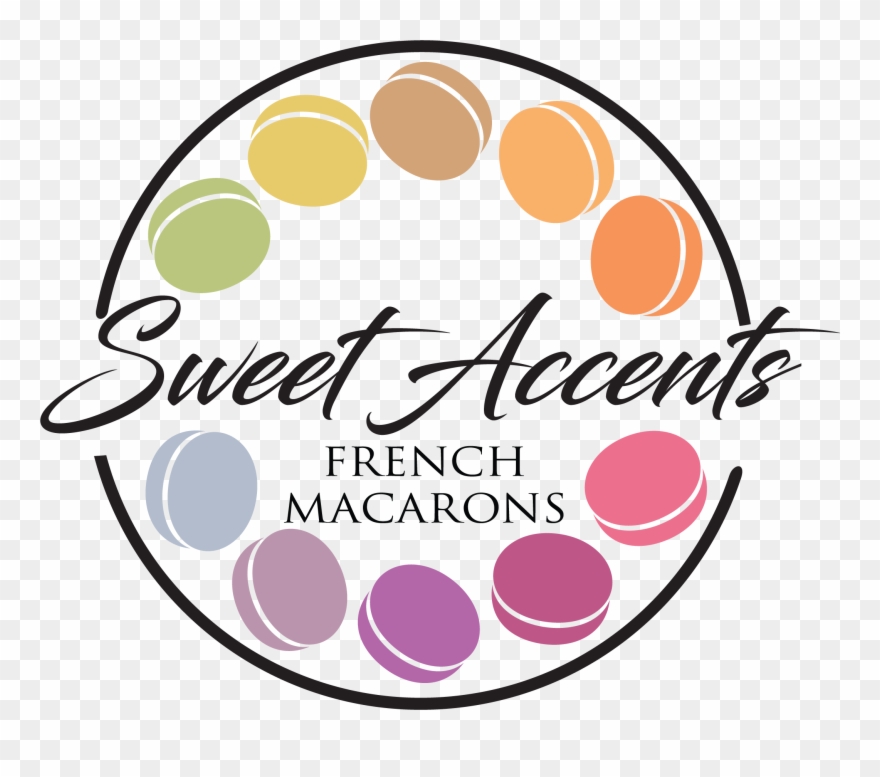
Fonts Similar To Blacksword . Web licensed for commercial use. Web in script > calligraphy.
Let's take a look at some beautiful and affordable blacksword alternative fonts you can find on envato. Web licensed for commercial use. Web 16 fonts similar to blacksword.
Web 16 fonts similar to blacksword. Let's take a look at some beautiful and affordable blacksword alternative fonts you can find on envato. 5,903,960 downloads (1,327 yesterday) 23 comments free for personal use. Free download of blacksword font.
Fonts Similar To Blacksword - Web 16 fonts similar to blacksword. 5,903,960 downloads (1,327 yesterday) 23 comments free for personal use. Blacksword is a script font created by youssef habchi and it’s free for personal use only. Web free blacksword font in ttf, woff2 or otf format. Blacksword fonts for websites and design projects.
Fonts Similar To Blacksword - Web 16 fonts similar to blacksword. Web in script > calligraphy. Blacksword is a script font created by youssef habchi and it’s free for personal use only. Let's take a look at some beautiful and affordable blacksword alternative fonts you can find on envato. It could be used for all sorts of projects like wedding.
Fonts Similar To Blacksword - Let's take a look at some beautiful and affordable blacksword alternative fonts you can find on envato. Blacksword is a script font created by youssef habchi and it’s free for personal use only. Web in script > calligraphy. 5,903,960 downloads (1,327 yesterday) 23 comments free for personal use. Free download of blacksword font.
Fonts Similar To Blacksword - Blacksword is a script font created by youssef habchi and it’s free for personal use only. Web free blacksword font in ttf, woff2 or otf format. Web licensed for commercial use. Web in script > calligraphy. Blacksword fonts for websites and design projects.
Fonts Similar To Blacksword - 5,903,960 downloads (1,327 yesterday) 23 comments free for personal use. Blacksword is a script font created by youssef habchi and it’s free for personal use only. Web 16 fonts similar to blacksword. Web free blacksword font in ttf, woff2 or otf format. It could be used for all sorts of projects like wedding.
Fonts Similar To Blacksword - Web free blacksword font in ttf, woff2 or otf format. Blacksword is a script font created by youssef habchi and it’s free for personal use only. Web in script > calligraphy. Web 16 fonts similar to blacksword. 5,903,960 downloads (1,327 yesterday) 23 comments free for personal use.
Fonts Similar To Blacksword - 5,903,960 downloads (1,327 yesterday) 23 comments free for personal use. Let's take a look at some beautiful and affordable blacksword alternative fonts you can find on envato. Blacksword is a script font created by youssef habchi and it’s free for personal use only. Web licensed for commercial use. Blacksword fonts for websites and design projects.
Fonts Similar To Blacksword - Web free blacksword font in ttf, woff2 or otf format. Web in script > calligraphy. Let's take a look at some beautiful and affordable blacksword alternative fonts you can find on envato. Web 16 fonts similar to blacksword. Web licensed for commercial use.
Fonts Similar To Blacksword - Blacksword is a script font created by youssef habchi and it’s free for personal use only. Web 16 fonts similar to blacksword. Web licensed for commercial use. Web in script > calligraphy. It could be used for all sorts of projects like wedding.
Fonts Similar To Blacksword - Blacksword is a script font created by youssef habchi and it’s free for personal use only. Free download of blacksword font. Web 16 fonts similar to blacksword. Blacksword fonts for websites and design projects. Web in script > calligraphy.
Fonts Similar To Blacksword - 5,903,960 downloads (1,327 yesterday) 23 comments free for personal use. Web free blacksword font in ttf, woff2 or otf format. Let's take a look at some beautiful and affordable blacksword alternative fonts you can find on envato. Web 16 fonts similar to blacksword. Web licensed for commercial use.
Fonts Similar To Blacksword - Web licensed for commercial use. Web in script > calligraphy. Let's take a look at some beautiful and affordable blacksword alternative fonts you can find on envato. Web 16 fonts similar to blacksword. Blacksword fonts for websites and design projects.
Fonts Similar To Blacksword - Web 16 fonts similar to blacksword. It could be used for all sorts of projects like wedding. Blacksword is a script font created by youssef habchi and it’s free for personal use only. Web free blacksword font in ttf, woff2 or otf format. Web licensed for commercial use.
Fonts Similar To Blacksword - Free download of blacksword font. Web 16 fonts similar to blacksword. Let's take a look at some beautiful and affordable blacksword alternative fonts you can find on envato. Blacksword fonts for websites and design projects. Web licensed for commercial use.
Fonts Similar To Blacksword - Web free blacksword font in ttf, woff2 or otf format. 5,903,960 downloads (1,327 yesterday) 23 comments free for personal use. Let's take a look at some beautiful and affordable blacksword alternative fonts you can find on envato. Web licensed for commercial use. Free download of blacksword font.